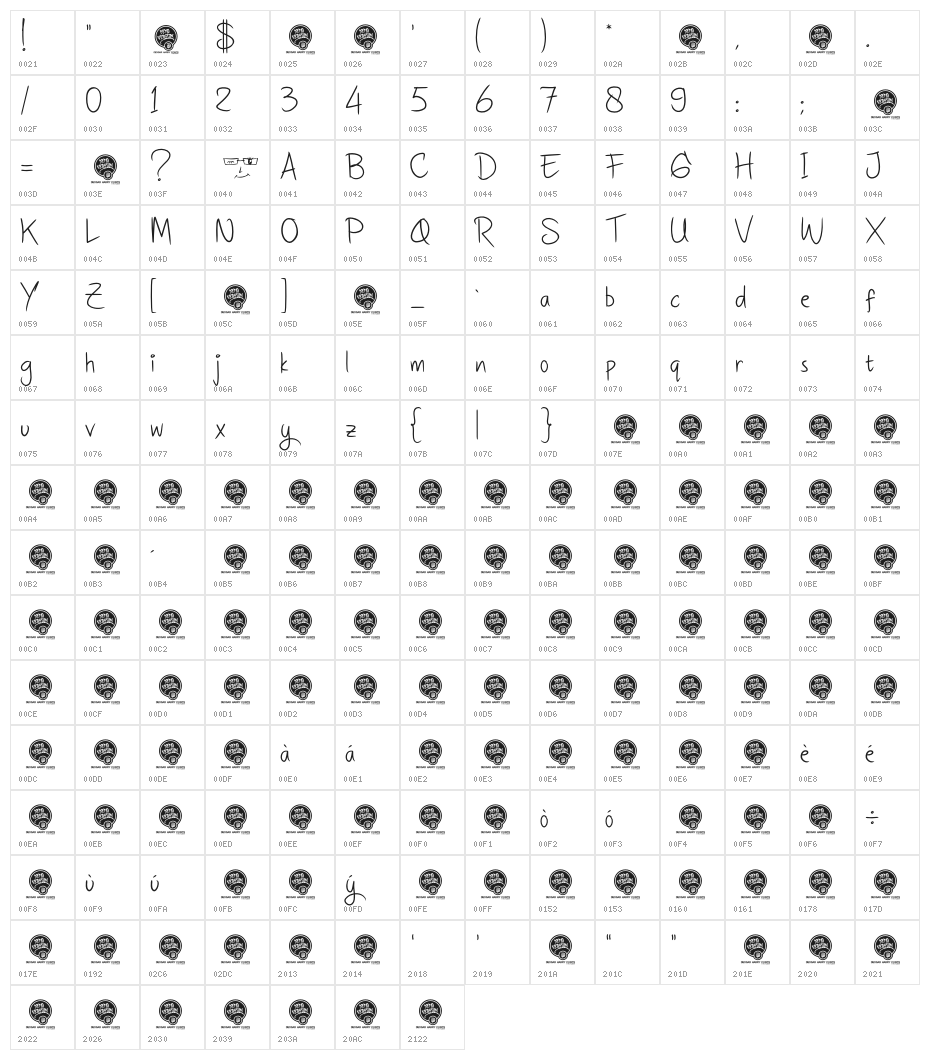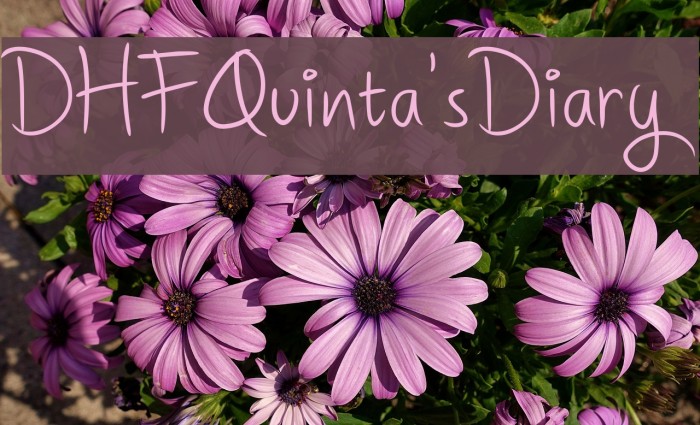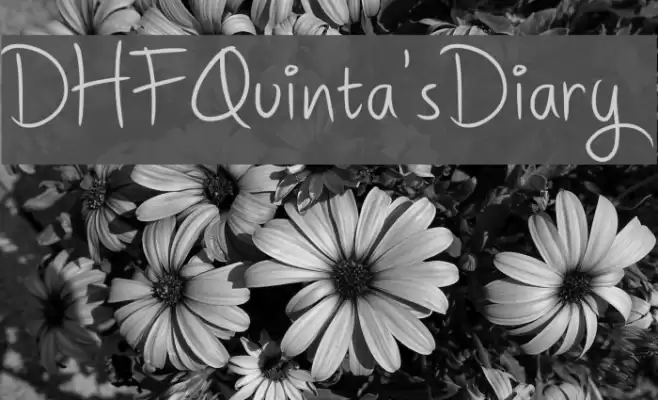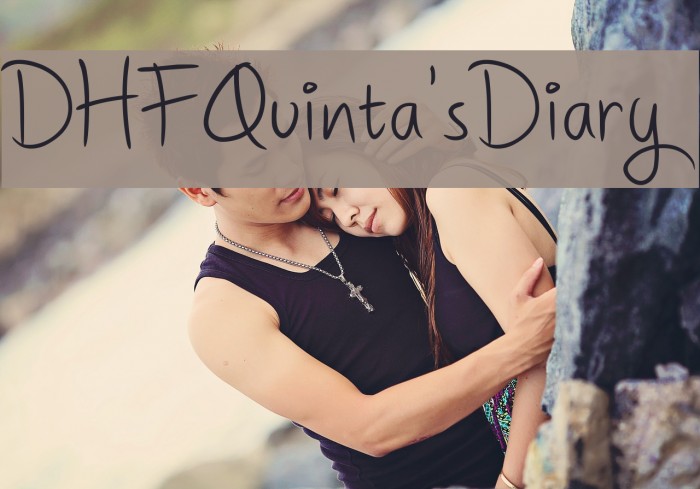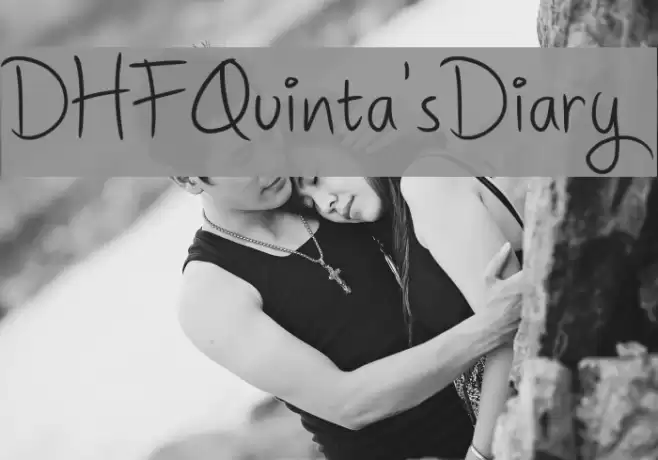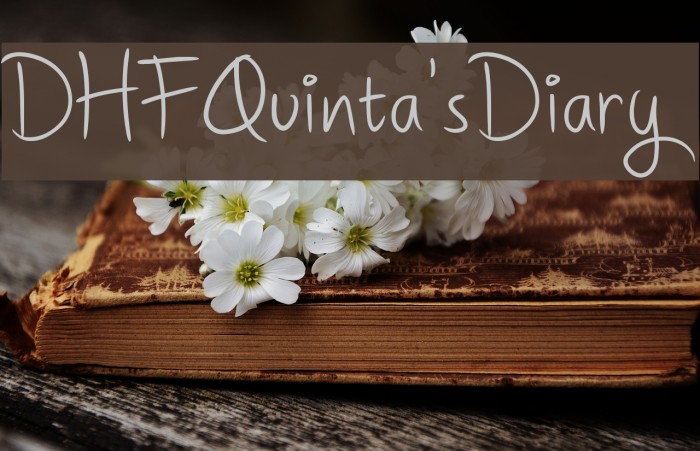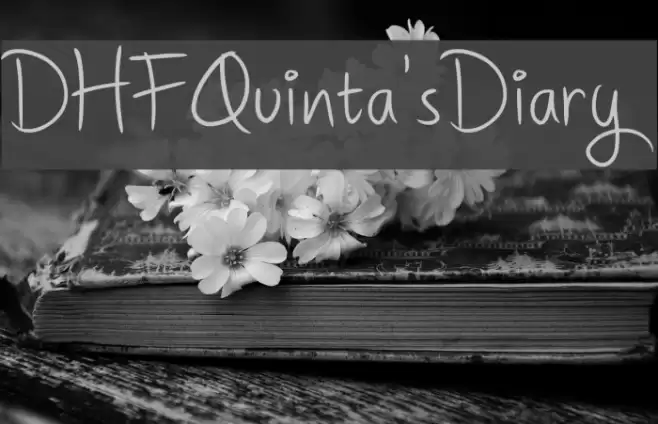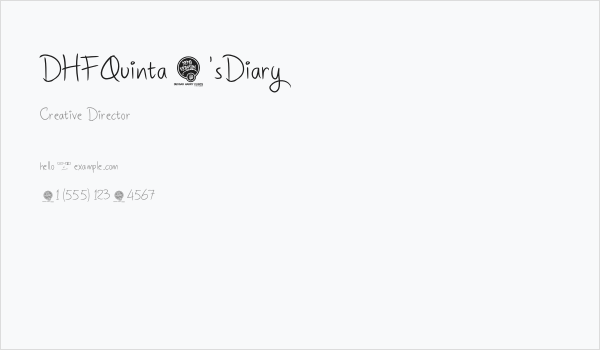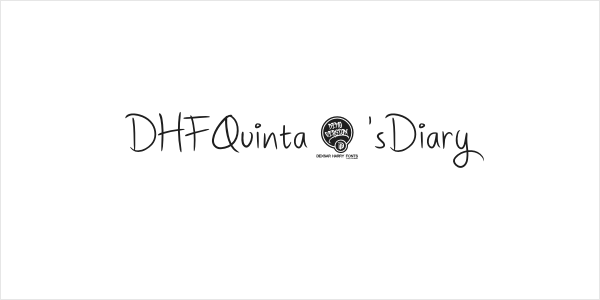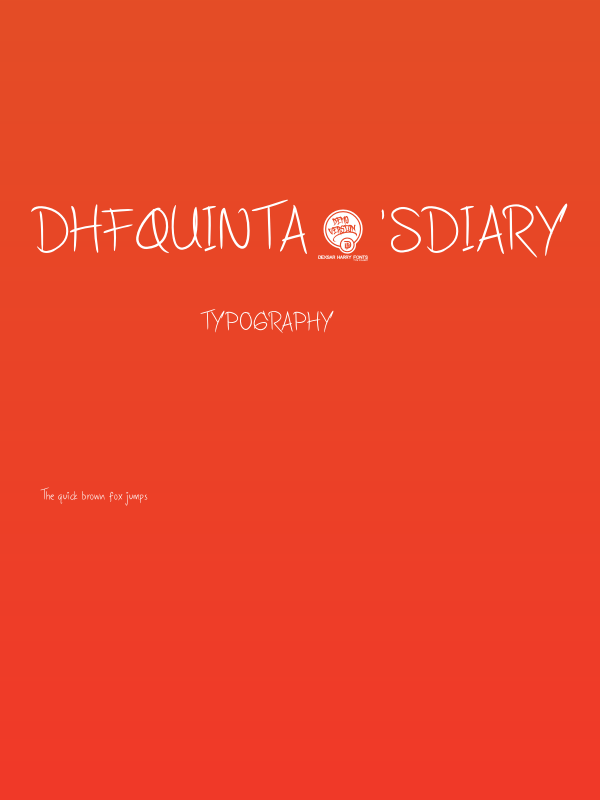
DHFQuinta'sDiary Font
DHFQuinta'sDiary Description
This font features a playful and whimsical handwritten style, characterized by its irregular, flowing lines and casual appearance. The uppercase letters are tall and slightly narrow, with a consistent stroke width that gives them a clean yet informal look. The lowercase letters maintain the same playful quality, with some letters featuring unique loops and curves that add to the font's charm. The numerals are well-balanced and align well with the overall style, making them easy to read. Special characters are included, maintaining the same quirky and fun aesthetic. This font is perfect for projects that require a personal touch or a sense of creativity and fun.
| Proposed Projects | Ideal for greeting cards, children's books, playful branding, and creative social media graphics. |